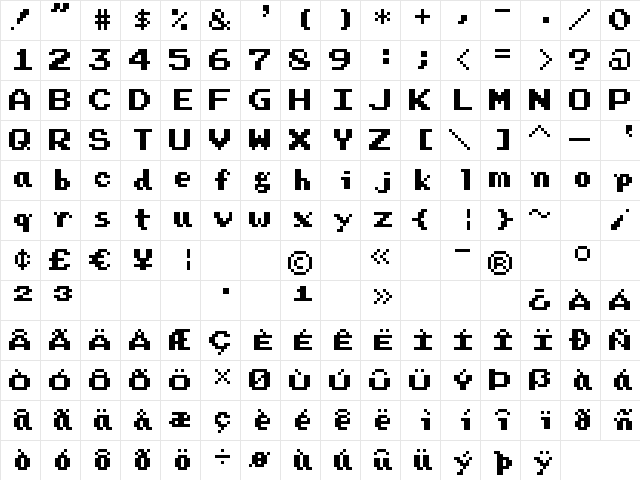
Press Start Regular
| Foundry | High-Logic |
| Designer | High-Logic - Erwin Denissen 1999 |
Design Context for Press Start Typeface
Press Start is a composed and adaptable typeface that performs quietly and consistently across a wide range of design contexts.